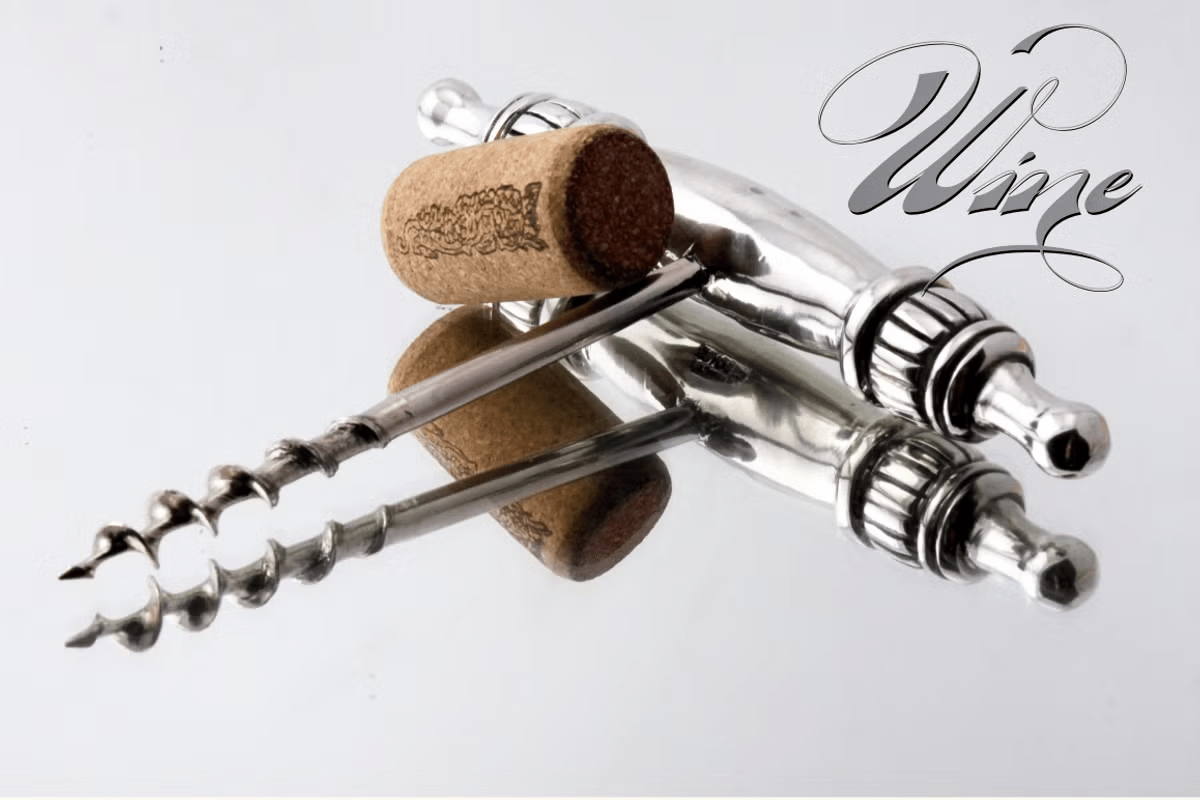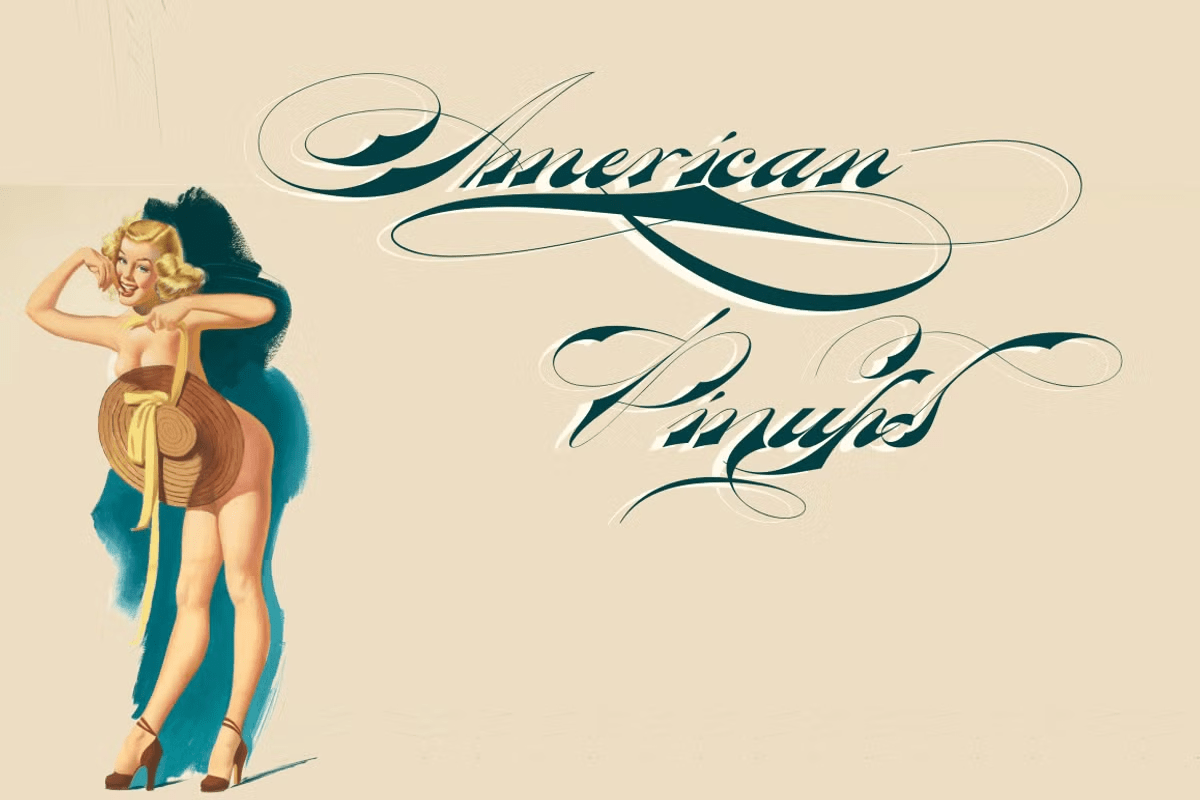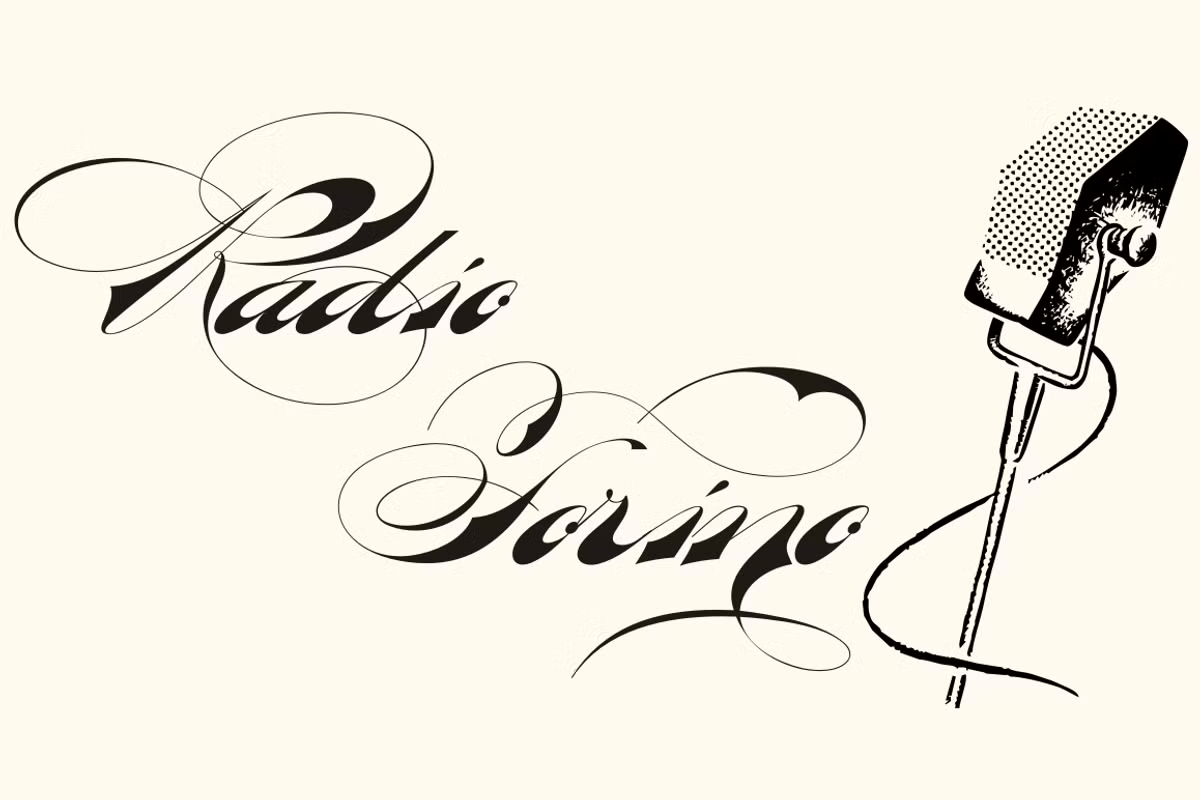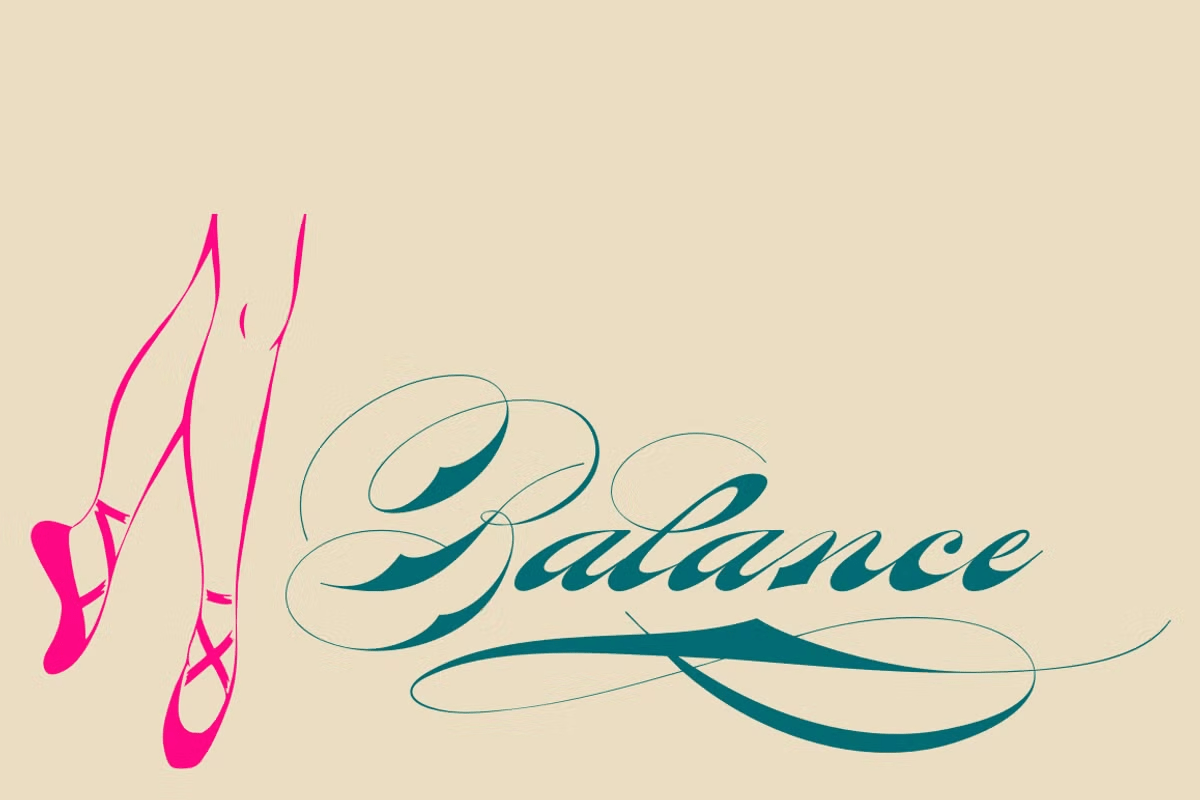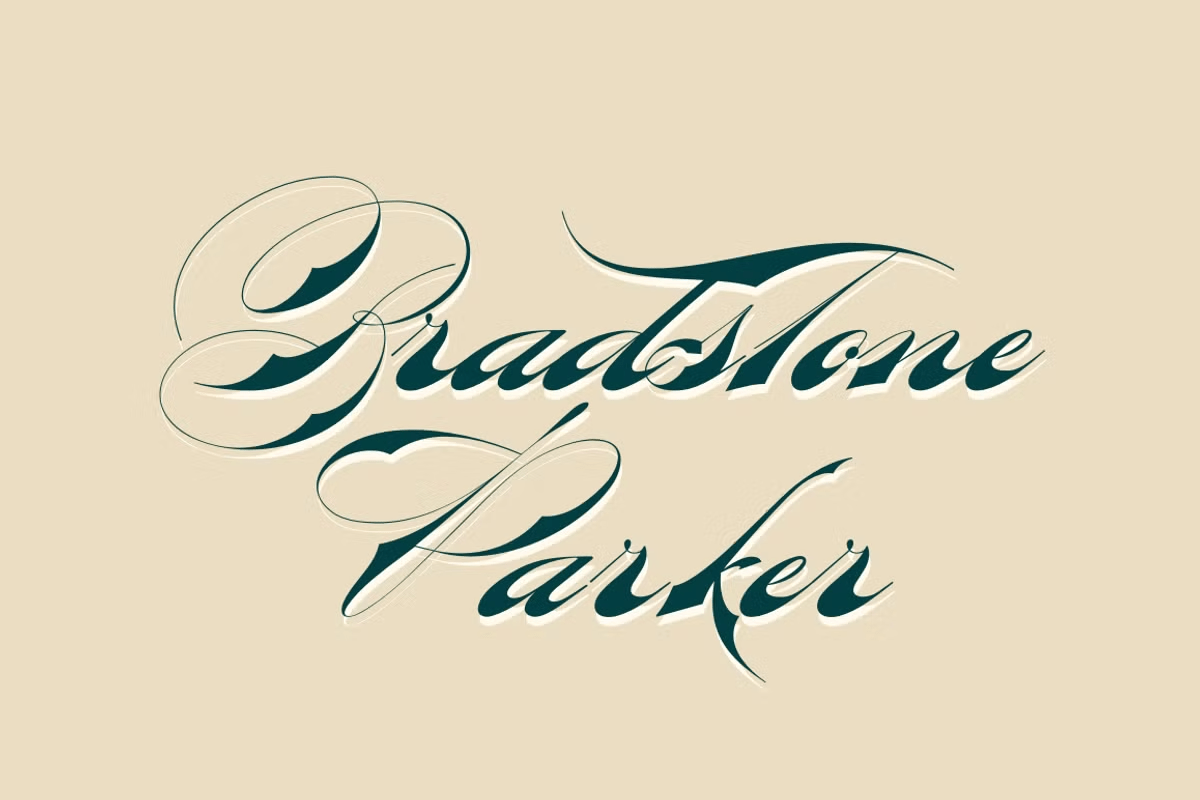
Bradstone Parker Script
About Bradstone Parker Script
Iza and Paulo W (Intellecta Design) are proud to announce Bradstone-Parker script Script. A free interpretation of the golden age writing style from American classical penmanship. Inspired in Zaner and his contemporaries Bradstone-Parker has evocative…